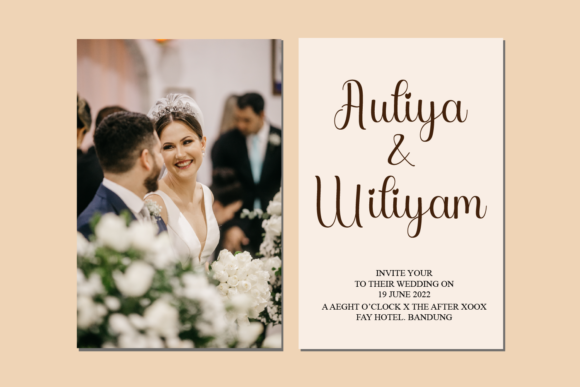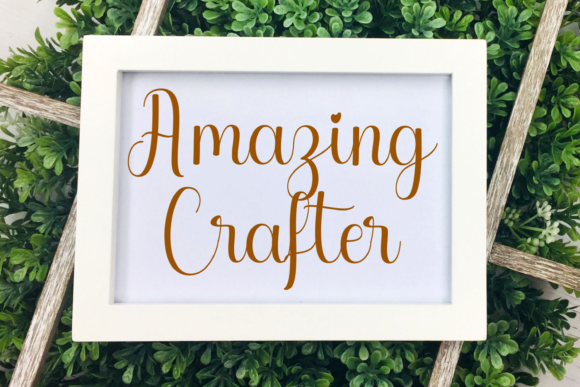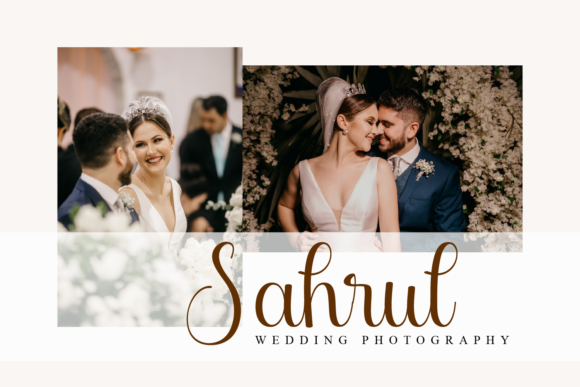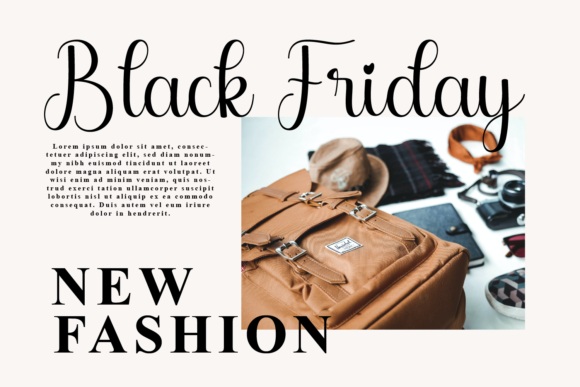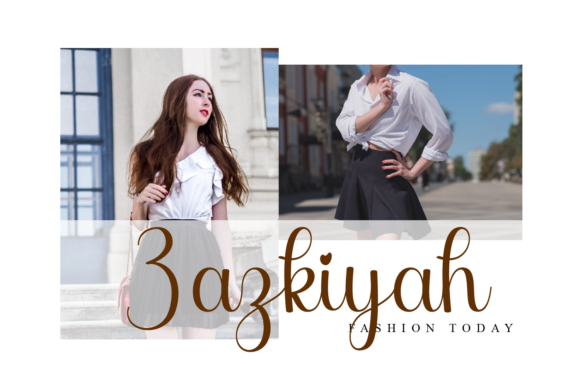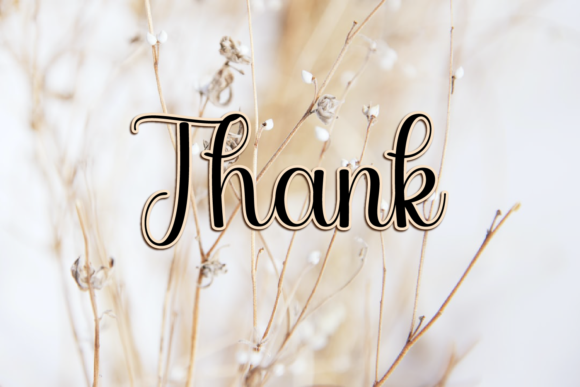
Discover the Charm of Arsyah Font: Elevate Your Designs with a Lovely Handwritten Style
Are you on the hunt for a font that adds a personal touch to your designs? Look no further than Arsyah Font, a beautiful and timeless handwritten font that is perfect for creating eye-catching logos, branding, and quotes. With its unique and beautiful touch, Arsyah Font is sure to make your designs come alive!
Handwritten fonts have a way of adding a personal and human touch to designs. They evoke emotions and create a sense of connection with the viewer. Unlike generic and overused fonts, handwritten fonts like Arsyah Font bring a level of authenticity and uniqueness to your designs. Whether you’re a designer, crafty DIY enthusiast, or social media influencer, Arsyah Font is a versatile choice that can elevate your visual content.
What Makes Arsyah Font Special?
Arsyah Font is more than just a pretty face. Its unique characteristics make it an excellent choice for a wide range of design projects. Here are just a few reasons why Arsyah Font stands out:
- Unique Letterforms: Every letter in Arsyah Font has a distinct and beautiful touch. The font’s handwritten style ensures that no two letters are exactly alike, adding a level of personality to your designs.
- Timeless Appeal: Arsyah Font has a classic, timeless quality that won’t go out of style. Its elegant and sophisticated design makes it perfect for creating logos, branding, and quotes that will stand the test of time.
- Versatility: Arsyah Font is incredibly versatile and can be used for a wide range of design projects, from logos and branding to social media graphics and quotes.
Using Arsyah Font for Your Designs
Arsyah Font is easy to use and can be incorporated into your designs in a variety of ways. Here are a few ideas to get you started:
- Logos and Branding: Use Arsyah Font to create a unique and memorable logo for your business or brand. Its timeless appeal ensures that your logo will stand the test of time.
- Quotes and Social Media Graphics: Add a personal touch to your social media graphics and quotes with Arsyah Font. Its handwritten style makes it perfect for creating engaging and shareable content.
- DIY Projects: Arsyah Font is a great choice for crafty DIY enthusiasts. Use it to add a personal touch to your handmade cards, gift tags, and other projects.
Tips for Getting the Most Out of Arsyah Font
To get the most out of Arsyah Font, here are a few tips to keep in mind:
- Experiment with Colors: Arsyah Font looks great in a variety of colors. Experiment with different colors to find the one that works best for your design.
- Play with Pairings: Arsyah Font can be paired with a variety of other fonts to create a unique and interesting design. Experiment with different pairings to find the one that works best for your project.
- Use it Sparingly: While Arsyah Font is beautiful, it can be overwhelming if used too much. Use it sparingly to add a touch of elegance and sophistication to your designs.
Arsyah Font is a lovely and timeless handwritten font that is perfect for creating eye-catching logos, branding, and quotes. Its unique and beautiful touch makes it a great choice for designers, crafty DIY enthusiasts, and social media influencers. With its versatility and timeless appeal, Arsyah Font is sure to elevate your designs and add a personal touch to your visual content.